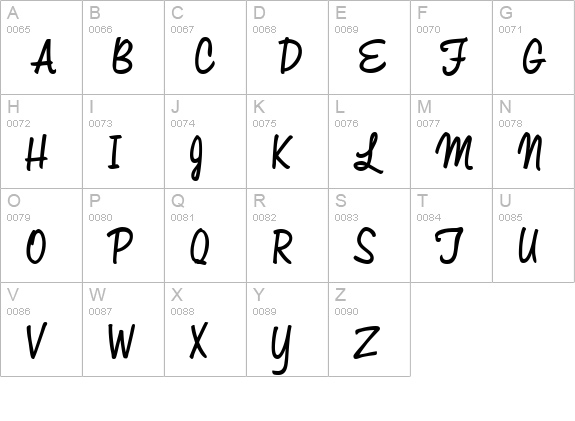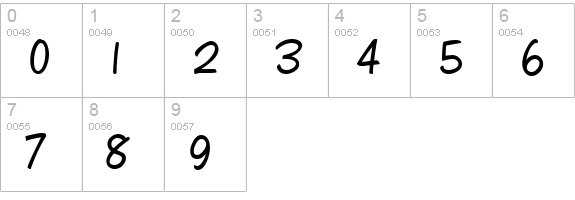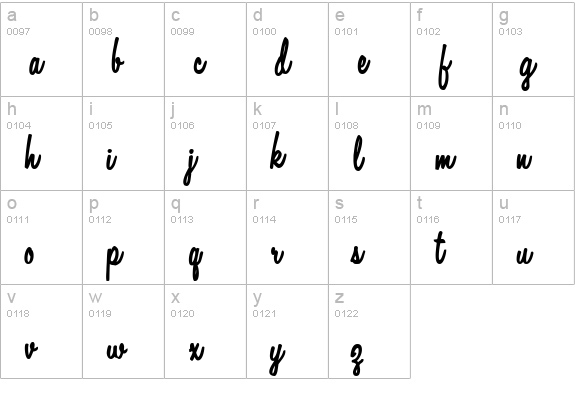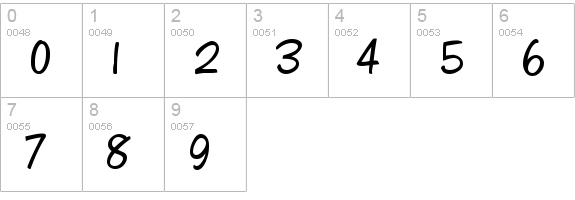
Oceans11 Font Details
Oceans11 font is a modern and stylish typeface that exudes sophistication and elegance. With its sleek lines and sharp edges, this font is perfect for creating eye-catching designs that demand attention. Whether you're working on a logo, branding materials, or any other creative project, Oceans11 font will elevate your work to the next level. Best of all, Oceans11 font is available for free download at FontsMarket.com. This means you can easily access this stunning font without any cost, making it a valuable addition to your design toolkit. Don't miss out on the opportunity to enhance your projects with the beauty and versatility of Oceans11 font. Download it today and see the difference it can make in your designs.